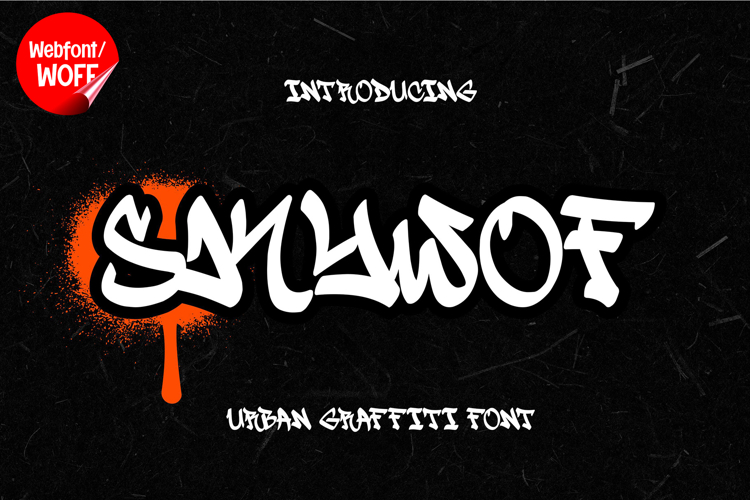
Skywoff | Graffiti Tags Webfont for Urban Website Style
Skywoff is a graffiti tags webfont designed to bring authentic street tagging style into modern website design. Inspired by quick handstyle tags and urban calligraphy, this font features fluid strokes, natural motion, and expressive character forms that capture the essence of real graffiti writing. It is an excellent choice for projects that require a raw, creative, and street-inspired typographic identity.
Skywoff includes a complete set of uppercase characters designed with graffiti tag-style strokes. The letterforms have a handwritten flow that reflects natural movement, giving the font an organic and dynamic appearance. These characteristics make it ideal for headlines, branding elements, banners, and featured content where a bold urban presence is needed.
In addition to letters, the font includes numbers and punctuation, allowing flexible usage across various parts of a website. It works well for promotional content, event announcements, navigation highlights, and creative interface elements. Each character maintains a consistent graffiti tag style, ensuring a cohesive and unified visual identity throughout the layout.
With multilingual support, Skywoff includes a wide range of accented characters, making it suitable for international websites and global audiences. This allows content to be displayed clearly across different languages while preserving the expressive graffiti aesthetic.
The graffiti tag style of Skywoff makes it especially suitable for urban-themed websites, streetwear brands, music platforms, creative portfolios, and lifestyle blogs. Its fluid and expressive design adds personality and authenticity, helping websites stand out in visually competitive environments. The handwritten feel also enhances branding that emphasizes originality and street culture.
Despite its freeform and expressive appearance, Skywoff is designed with readability in mind. The spacing and structure of each character are carefully balanced to ensure clarity, particularly in display sizes. This makes it effective for impactful headings and short content elements where both style and usability are important.
Skywoff is a webfont that combines graffiti tagging aesthetics with modern digital performance. Its fluid strokes, natural flow, and urban character create a distinctive typographic presence that enhances website design. For projects that require a creative, authentic, and visually engaging graffiti font, Skywoff offers a powerful and flexible solution.